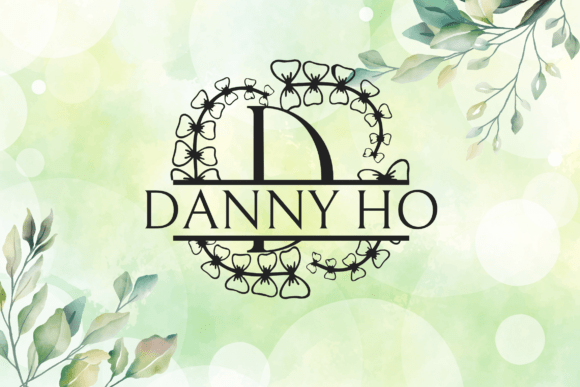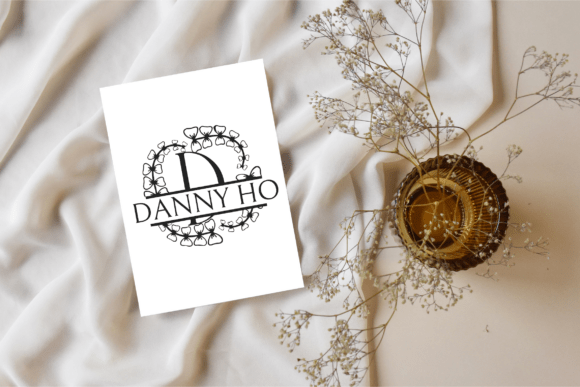
Introduction to Eden Loop Split Monogram Font
As designers, we’ve all been there – staring at a blank page, trying to bring our creative vision to life. It’s the moment when a perfect font can make all the difference. For me, it was the discovery of the Eden Loop Split Monogram Font that sparked a wave of inspiration. This beautifully refined serif font features elegant loops and a balanced horizontal split, making it a dream come true for anyone looking to add a touch of sophistication to their design projects.
With its classic uppercase letters divided by a clean horizontal break, the Eden Loop Split Monogram Font is a game-changer for anyone looking to create personalized name inserts. Whether you’re working on a wedding invitation, a custom name plate, or a luxury brand logo, this font is sure to elevate your design to the next level.
Key Features of Eden Loop Split Monogram Font
- Unique Monogram Design: The Eden Loop Split Monogram Font features a distinctive, interconnected design that makes it perfect for creative projects.
- Perfect for Personal Projects: With its unique design and free availability, the Eden Loop Split Monogram Font is an excellent choice for personal creative projects.
Honest Review: Eden Loop Split Monogram Font
I recently had the chance to work with the Eden Loop Split Monogram Font, and I must say, I was quite impressed. This free download has been a great addition to my design resource library.
- ✨ High-quality design: The font is well-crafted and visually appealing, making it perfect for any creative project.
- ✨ Versatility: The font can be used for a variety of purposes, from wedding invitations to branding materials.
- ✨ Transparent background: This feature allows for seamless integration with other design elements.
- ⚠️ Limited character set: The font only includes a limited number of characters, which may not be suitable for all design projects.
- ⚠️ Not ideal for large-scale use: The font may not be the best choice for projects that require a lot of text or extensive use.
Overall, I’m quite pleased with the Eden Loop Split Monogram Font. It’s a great addition to any designer’s library, especially for smaller creative projects. While it has its limitations, the font’s high quality and versatility make it a valuable resource.
The Eden Loop Split Monogram Font is ideal for creative projects, such as branding, invitations, and social media graphics. Its unique design and high-quality texture make it a popular choice among designers.